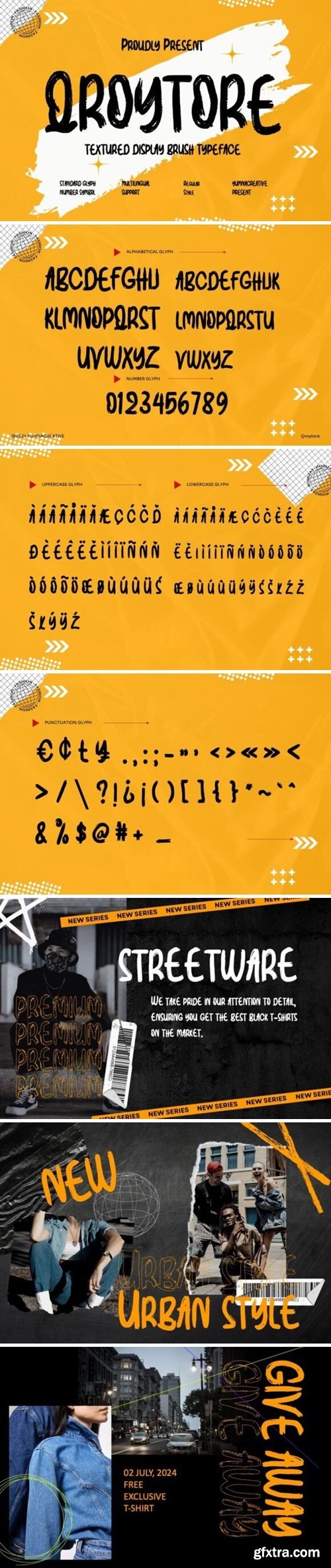
Outstanding in a wide range of contexts.
Vannesa Stylish Ligature Typeface, inspired by the famous minimalist logo perfect for the purposes of designing templates, brochures, videos, advertising branding, logos and more.
Mocca Sans Font Typeface inspired by the famous minimalist logo perfect for the purposes of designing templates, brochures, videos, advertising branding, logos, invitation, layout design, elegant crafting, beauty design and other.
This Font is a delicate, elegant and flowing handwritten font. It has beautiful and well as a unique blend of ligatures a letter, so that the authors compose it with a and little swirly embedding, so that a modern font is formed and ready to make a statement by adding elegant and unique flair to your next design project. Add it to your most creative ideas and notice how it makes them come alive! This Font can be used for various purposes such as Magazine Title, Poster, Logo, T-Shirt, Sub Title, Business cards, Magazines, Book Covers, Wedding Invitations,Templates Instagram Story Post, Greeting Cards, Quotes, etc.